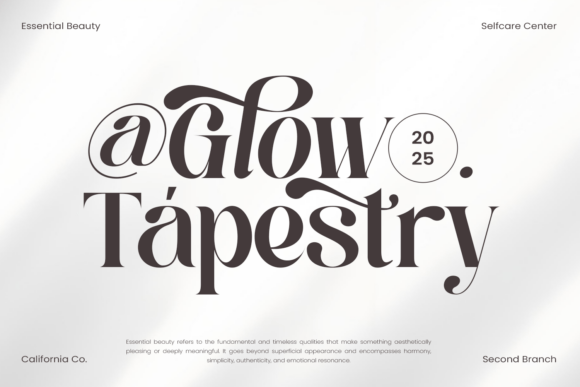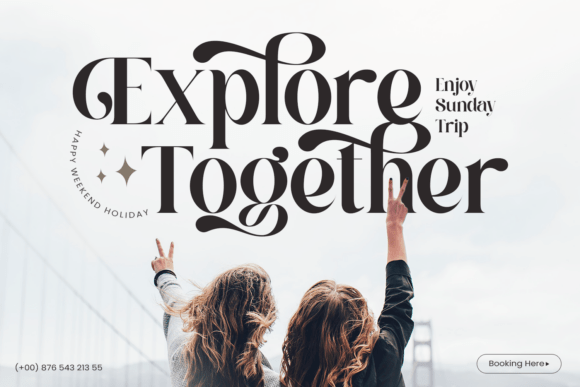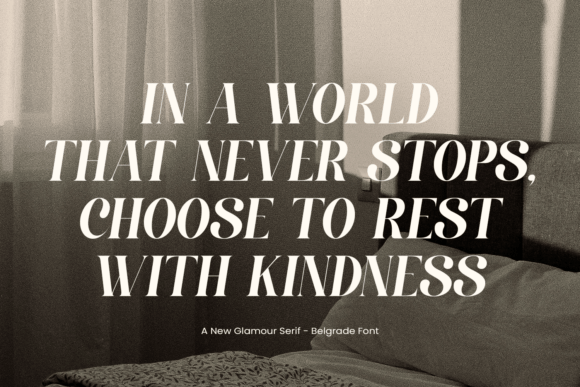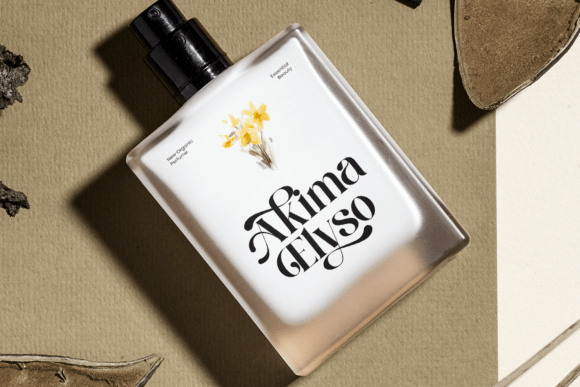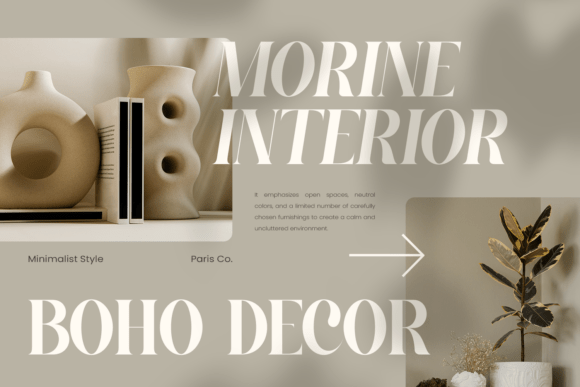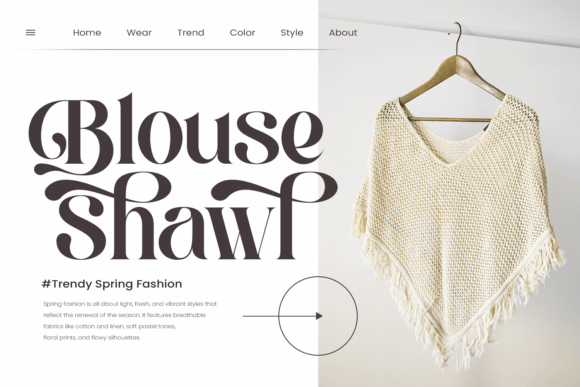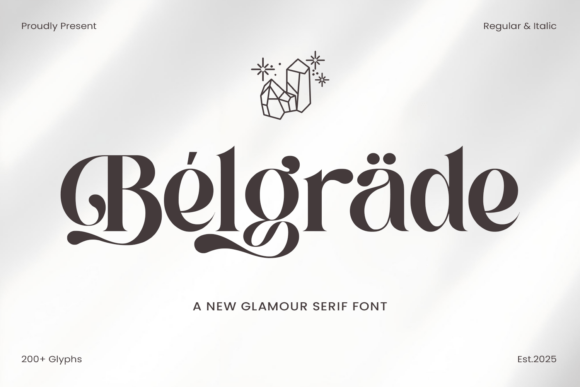
Introducing Belgrade Font: Elevate Your Designs with Timeless Elegance
In the world of typography, few fonts manage to convey the essence of luxury and sophistication as effortlessly as Belgrade. This elegant serif font is meticulously crafted to bring a touch of timeless charm to any project, making it an indispensable asset for designers and crafters alike. With its refined curves, delicate details, and beautifully designed ligatures, Belgrade is the epitome of class and refinement.
The Art of Elegance: Belgrade’s Design Features
What sets Belgrade apart from other fonts is its attention to detail. Each character is thoughtfully designed with beginning and ending swashes, adding a graceful and artistic touch to your typography. These swashes not only enhance the aesthetic appeal of the font but also provide a unique way to add personality to your designs. Whether you’re working on high-end branding, logos, quotes, or any other project that demands sophistication, Belgrade’s elegant design ensures that your typography stands out.
Belgrade’s versatility is one of its most compelling features. This font is perfectly suited for a wide range of applications, including:
- High-end branding: Create a lasting impression with Belgrade’s luxurious and refined appearance.
- Logos: Stand out from the competition with a unique and elegant logotype.
- Quotes: Add a touch of sophistication to inspirational quotes and sayings.
- Blog posts: Elevate your content with a font that exudes class and refinement.
- Wedding invitations: Make your wedding stationery truly unforgettable with Belgrade’s elegant charm.
- Product packaging: Add a touch of luxury to your product packaging and make it stand out on store shelves.
Seasonal and Occasional Themes
Belgrade’s timeless appeal makes it an excellent choice for various seasonal and occasional themes. Whether you’re designing for:
- Special occasions: Birthdays, Easter, Thanksgiving, Christmas, and more.
- Seasonal themes: Summer, spring, autumn, and winter.
Belgrade’s enchanting appeal ensures that your designs are always relevant and visually stunning.
Crafting and Embroidery
Belgrade is not just limited to digital designs. Its elegant and refined appearance makes it perfect for crafting and embroidery projects. Use Belgrade to create beautiful and intricate designs for:
- Crafting: Add a touch of sophistication to your crafting projects, such as card making, scrapbooking, and more.
- Embroidery: Create stunning embroidery designs with Belgrade’s elegant and refined lines.
- SVG designs: Use Belgrade to create intricate and beautiful SVG designs for cutting machines and more.
- Stylish lettering: Add a touch of luxury to your hand lettering and calligraphy projects.
Why Choose Belgrade Font?
With so many fonts available, why choose Belgrade? Here are just a few reasons why Belgrade stands out:
- Timeless elegance: Belgrade’s classic design ensures that your projects will never go out of style.
- Versatility: Use Belgrade for a wide range of projects, from high-end branding to crafting and embroidery.
- Attention to detail: Belgrade’s beautifully crafted ligatures, refined curves, and delicate details make it a true standout.
| Font Name | Belgrade Font |
| Author | Umitype |
In conclusion, Belgrade font is an exceptional choice for designers and crafters looking to add a touch of luxury and sophistication to their projects. With its timeless elegance, versatility, and attention to detail, Belgrade is sure to become a staple in your font collection. Whether you’re working on high-end branding, crafting, or embroidery projects, Belgrade is the perfect choice for anyone looking to elevate their designs and create something truly special.